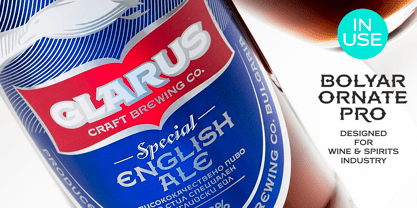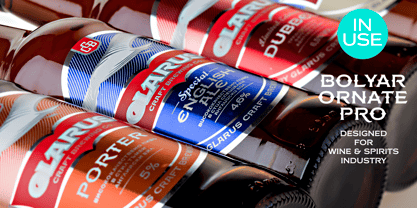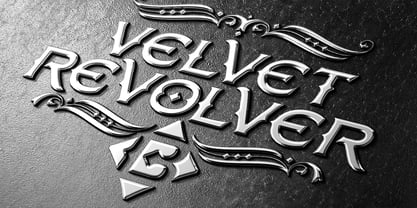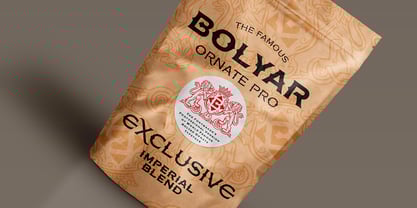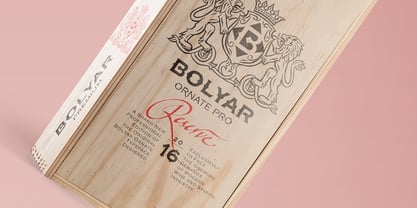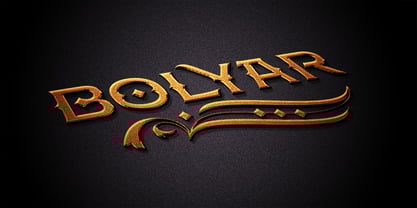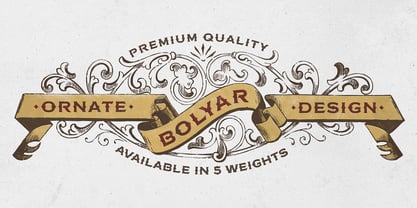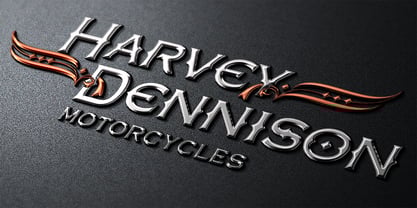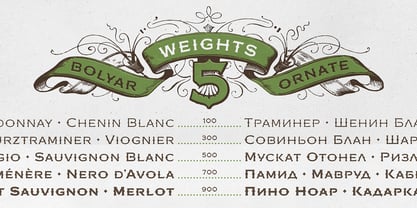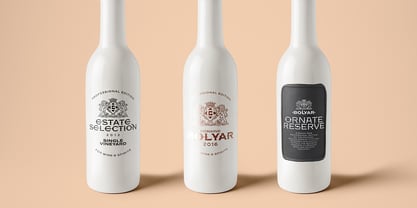
FM Bolyar Ornate Pro
by The Fontmaker
FM Bolyar Ornate Pro is the latest member of our renowned Bolyar mega family and the perfect companion for our very successful
. Developed to a new level of excellence this new improved ornate design is quite able to satisfy every typographic taste and meet the ever growing design requirements for high quality typefaces. If you are addicted to classic vintage style, then you could easily use Bolyar Pro Ornate for almost any project of desire - from letterheads, logos and catchy headlines to elegant packaging, book covers and wine labels. Alternates, Swashes and Ligatures will help you customize almost every single letter and fit perfectly to your artwork. Bolyar Ornate Pro provides a broad range of advanced typographical features such as: Five weights ranging from thin (100) to black (900) with full multilingual support of all Latin based languages as well as Cyrillic; 1000 glyphs per weight including three multilingual stylistic sets, swash designs and useful discretionary ligatures; Sub- and superscript basic Latin and Cyrillic glyphs as well as figures. Two positional models for lowercase accessed as OpenType case sensitive forms ñ base to base (default) and spur to spur (vertical center).
Designers: Jordan Jelev, Vassil Kateliev